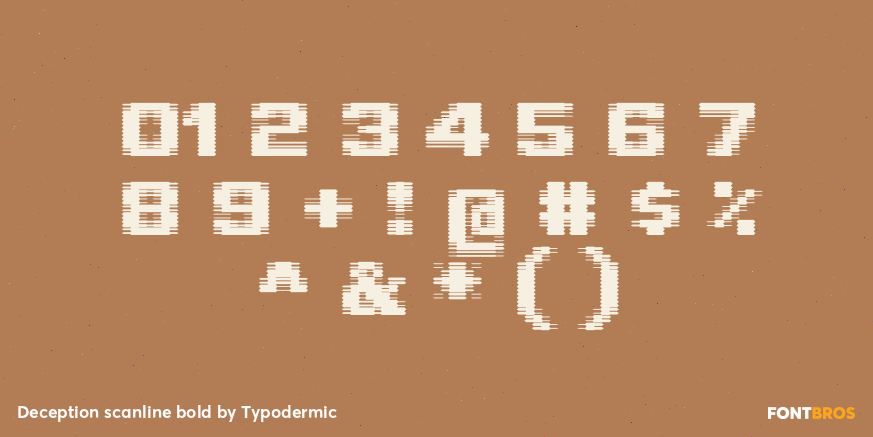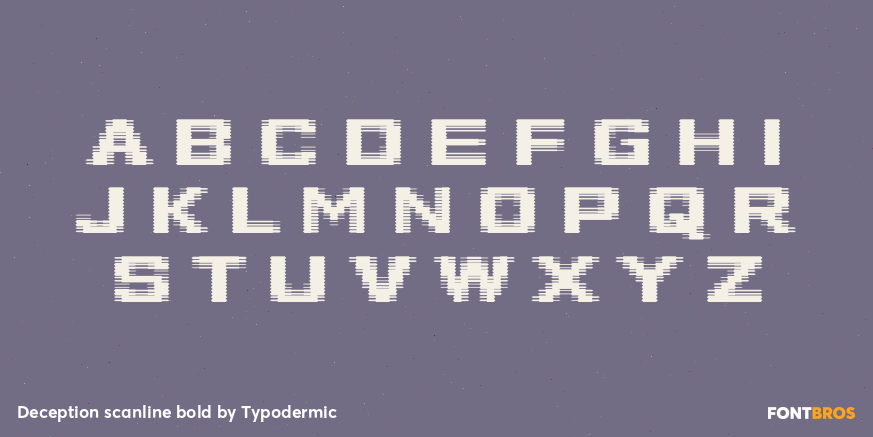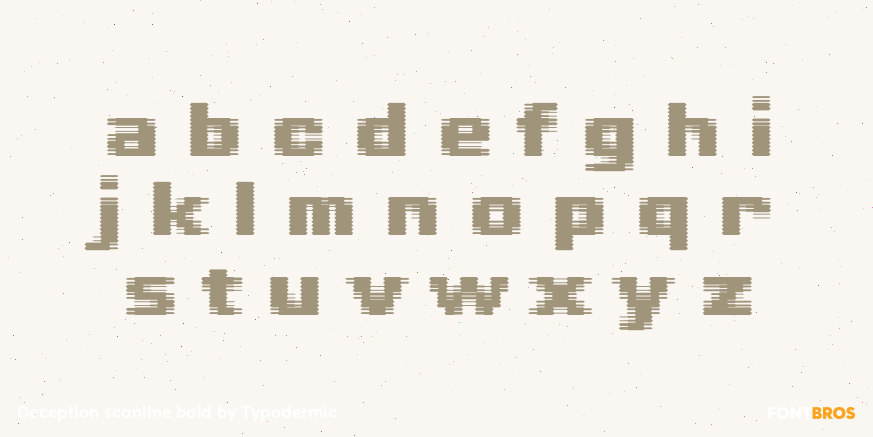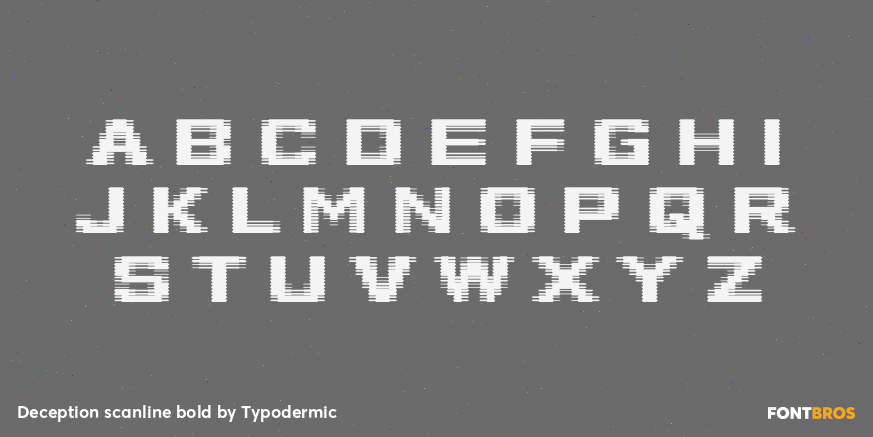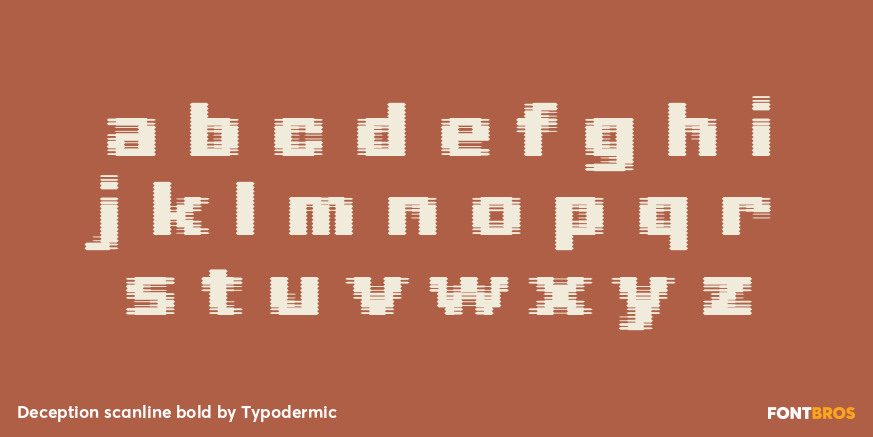
Deception scanline bold
Buy NowDeception Scanline filters the pixel alphabet through tight horizontal bands, recalling CRT displays, surveillance monitors, broadcast video, and scanned evidence. The regular interruption makes digital transmission visible while preserving enough structure for forceful display typography.
Use Scanline for retro-computing exhibits, cybersecurity events, documentary titles, video-art installations, game interfaces, camera-monitor graphics, and reports about recorded or manipulated footage. Regular provides a lighter electronic texture; Bold holds up on posters, LED walls, and title cards.